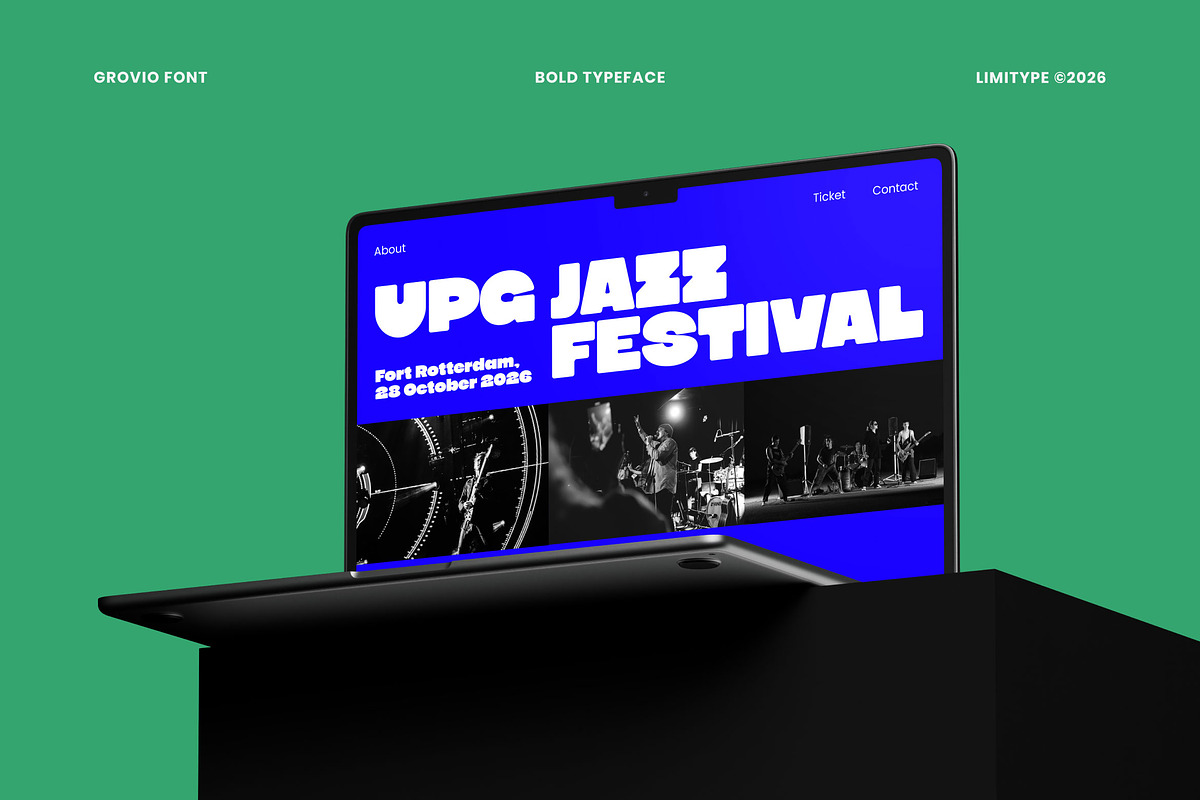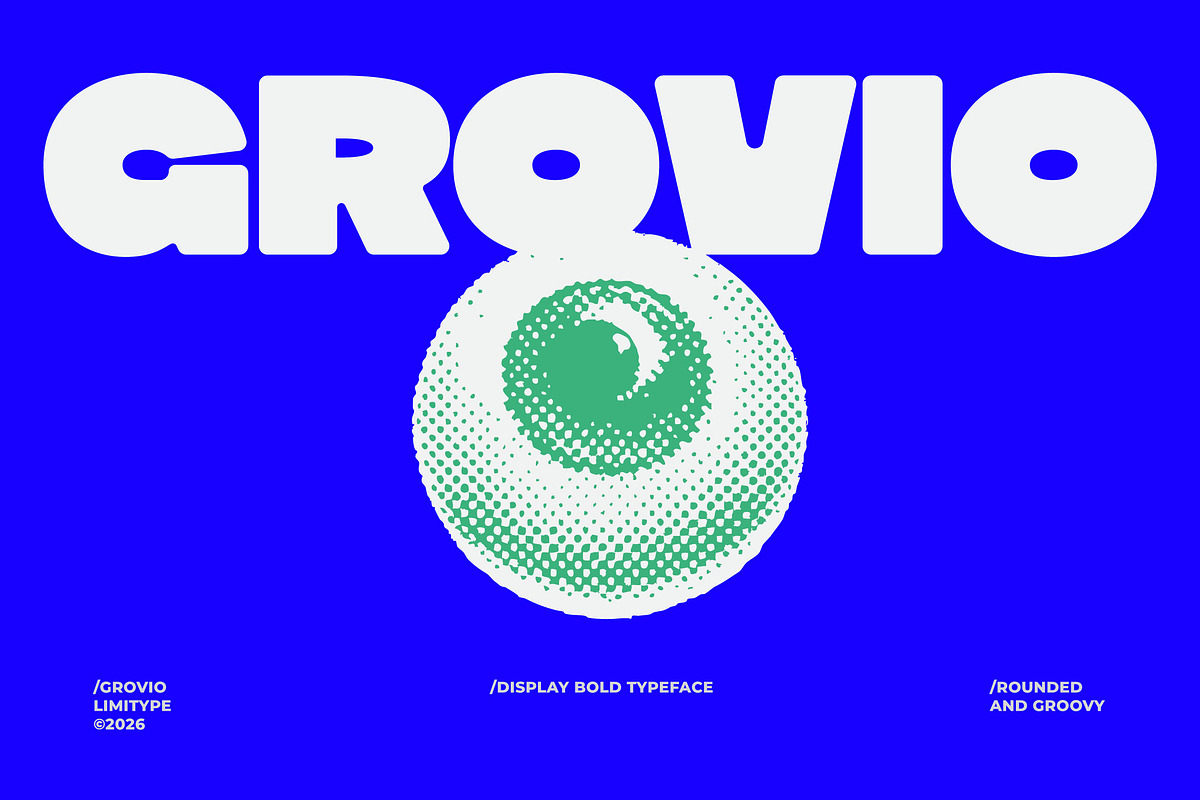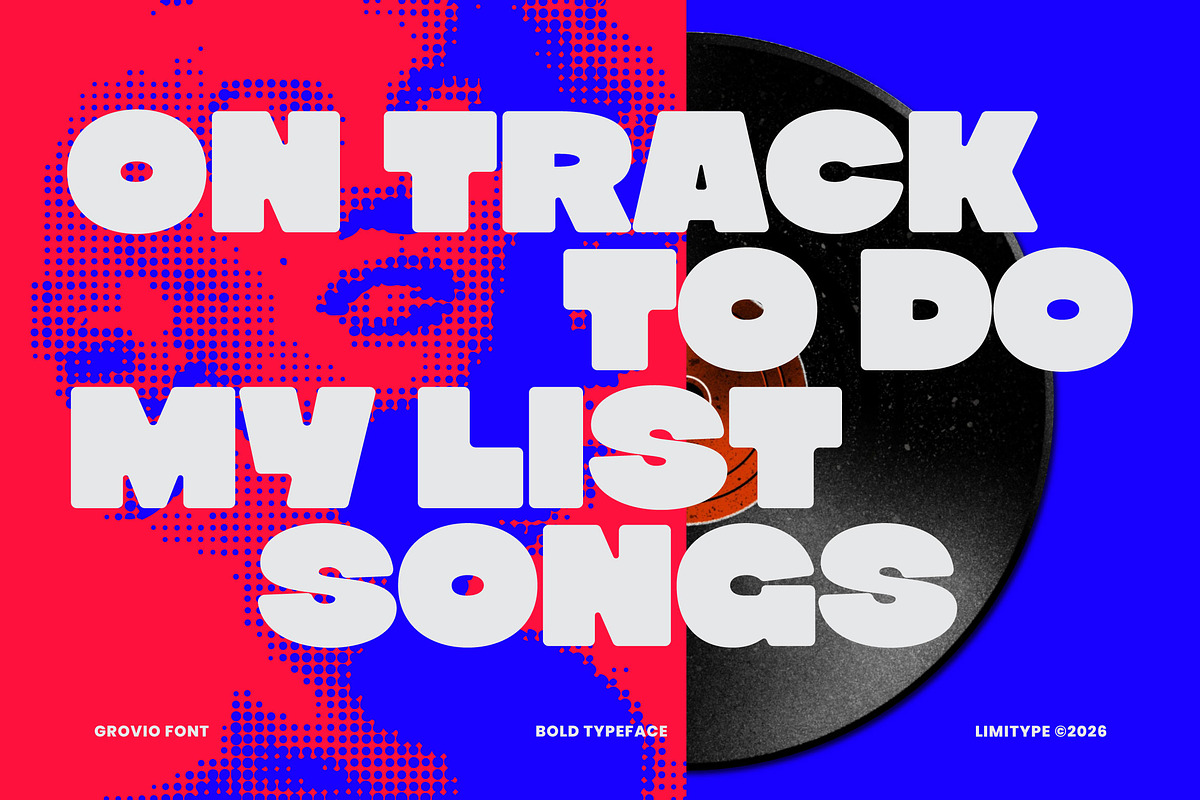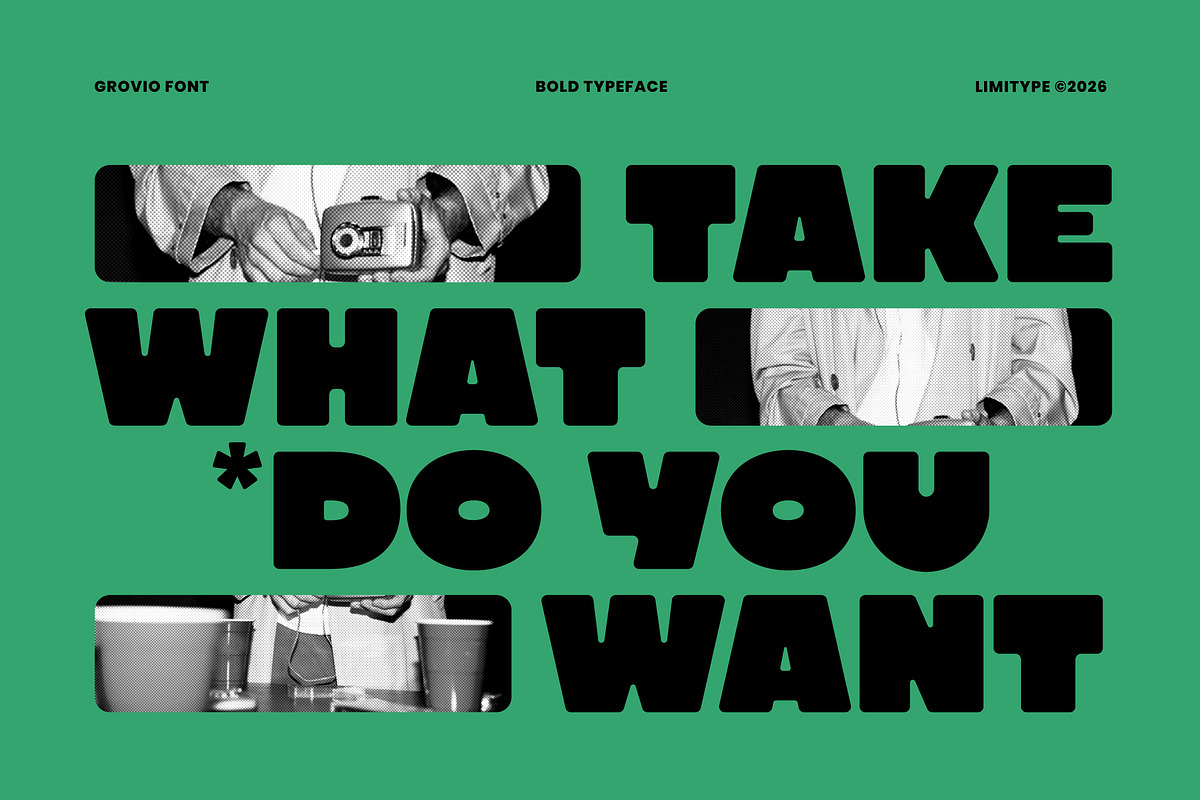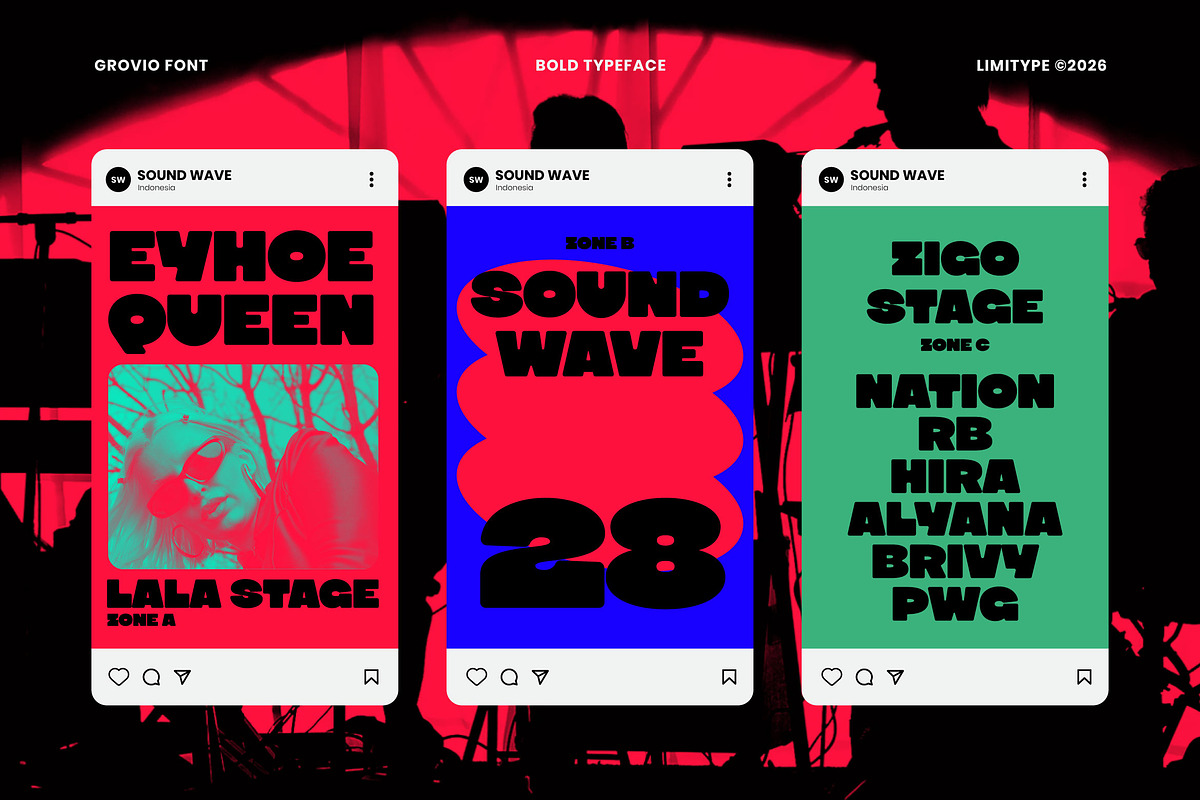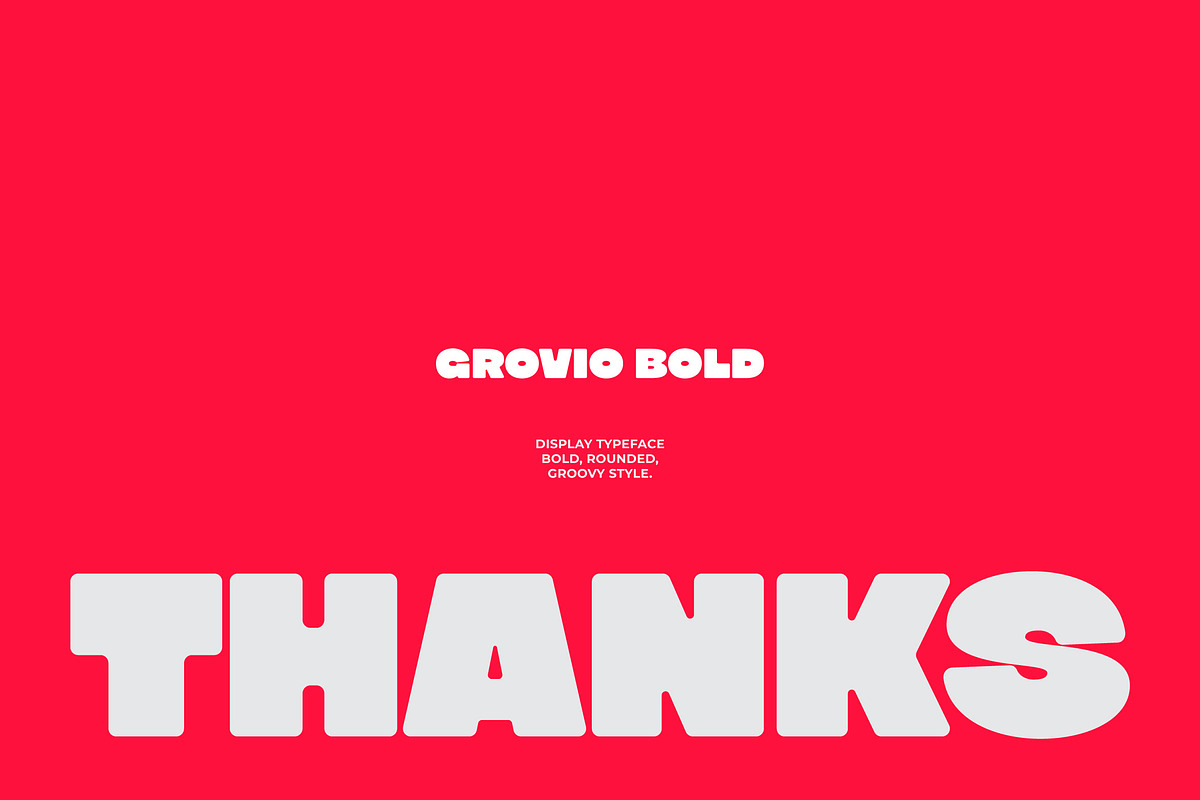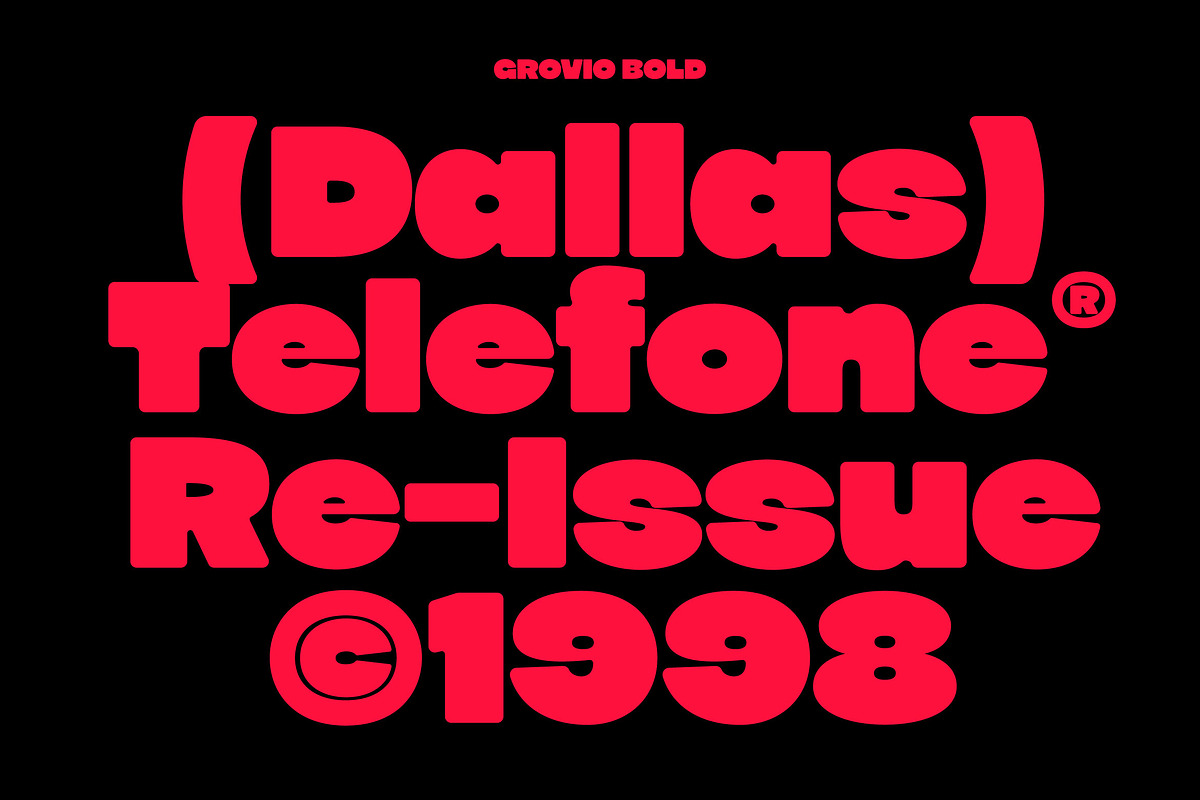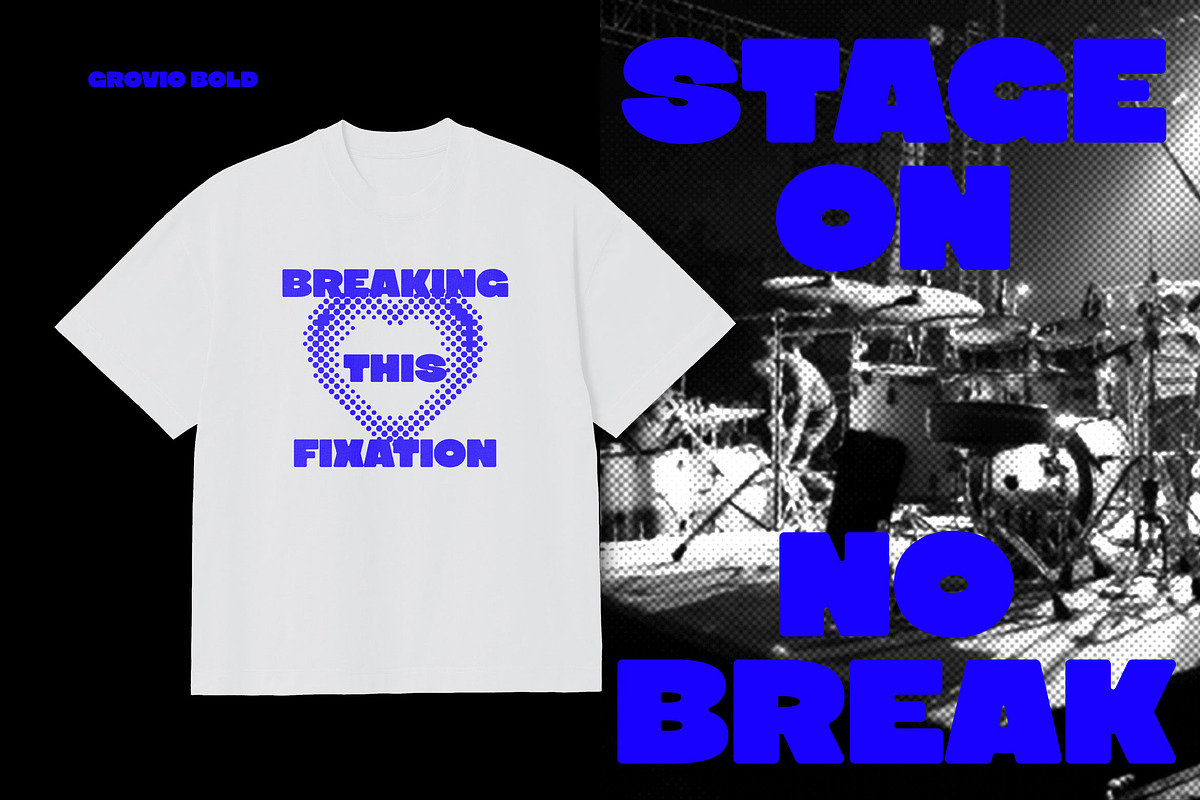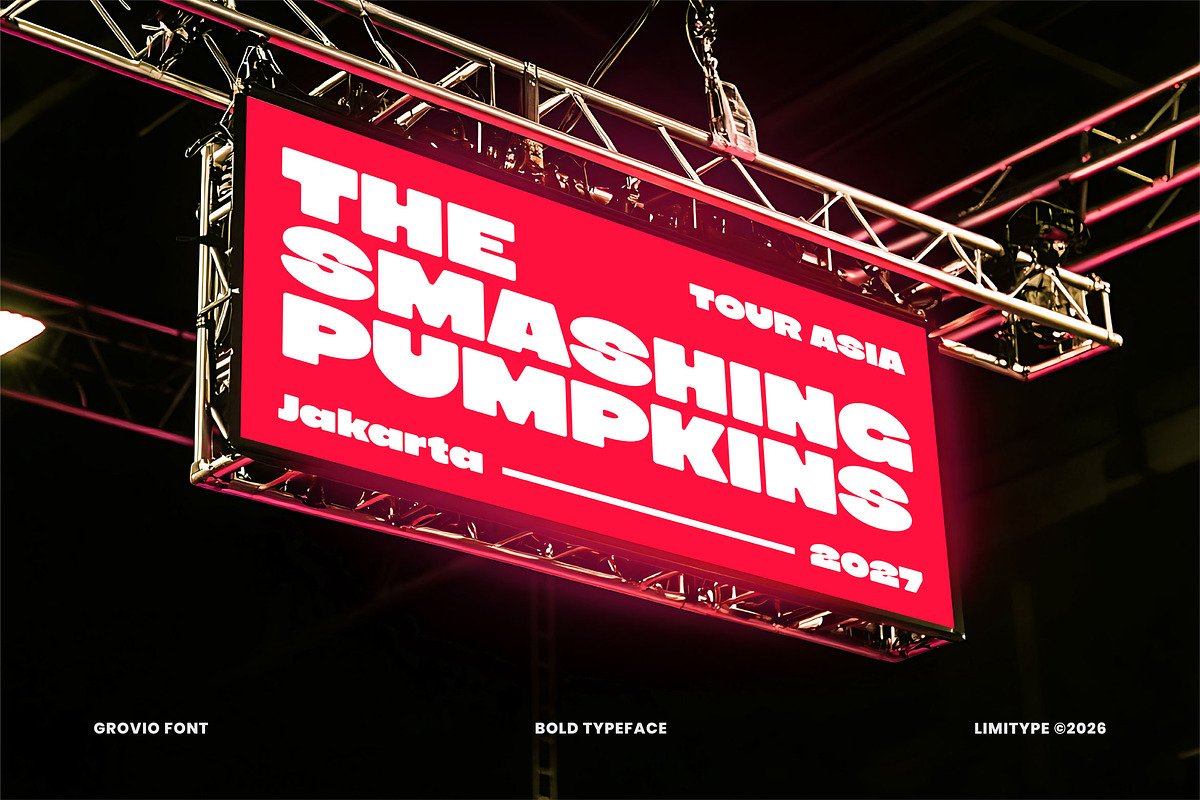
Grovio - Bold Dsiplay Font
Grovio is a bold groovy display font built around heavy rounded letterforms and playful cut details. Its thick shapes, smooth curves, and distinctive horizontal cuts create a fun retro personality with a strong visual impact. Perfect for bold branding, logos, posters, packaging, headlines, and various eye catching graphic designs.